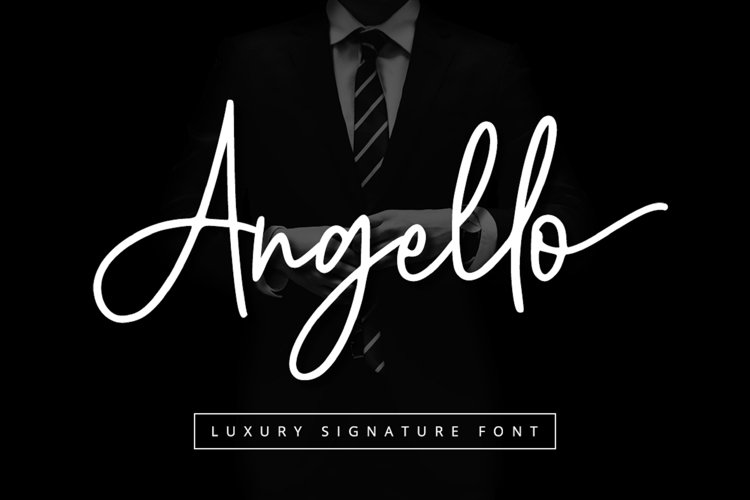
Introducing Angello - A Signature Font
An elegant, graceful, yet simplistic cursive font.
Inspire your audience, clients, or guests with this stylish, handwritten font that can be used for almost every platform such as websites, social media, pinterest, printed cards and many more!
Aesthetically pleasing handwritten cursive font, just for beautiful you!